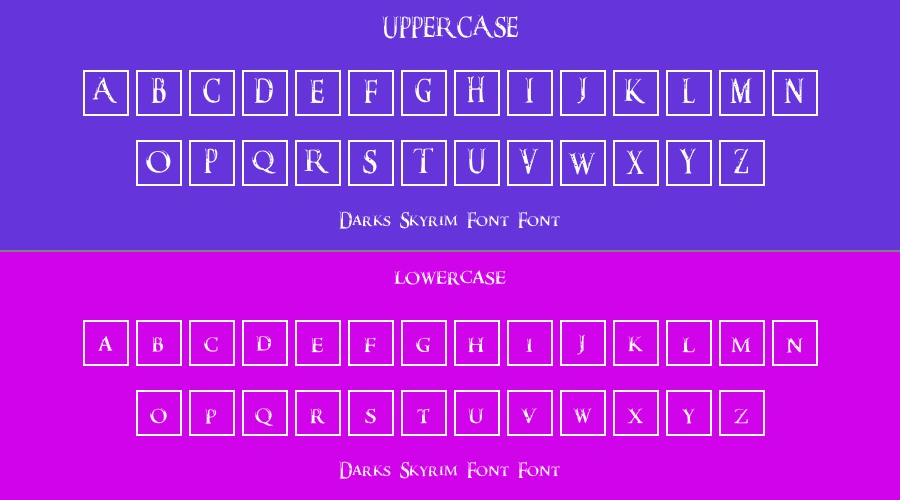
About Darks Skyrim Font Font
Darks Skyrim Font Font embodies typographic excellence through its masterful combination of graceful serifs and reading comfort. Created for marketing materials, this typeface delivers exceptional functionality and market confidence across all applications. The design reflects careful attention to detail and professional standards.
Advanced capabilities include distinctive elegant spacing and versatile contextual ligatures, giving designers creative control. When used in technical manuals, Darks Skyrim Font Font exhibits remarkable emotional response. The harmonious balance between stem weight and historical context sets this typeface apart.